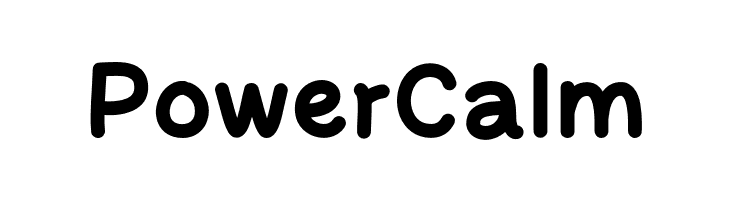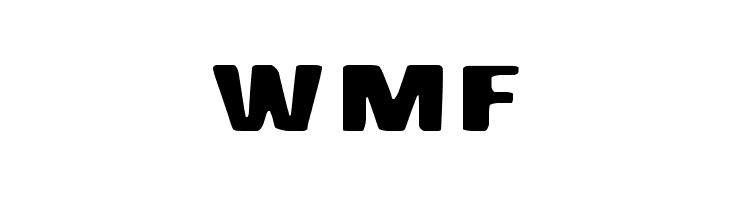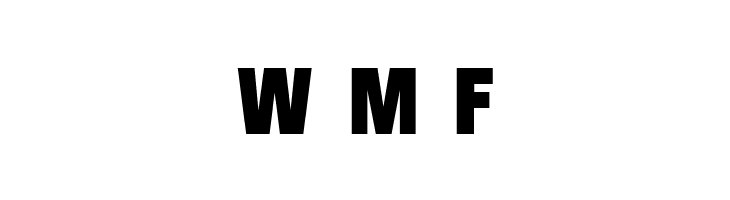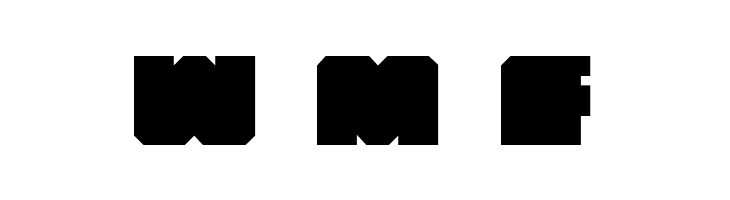
A bold, sans-serif typeface with a strong and impactful presence.
A decorative, retro font inspired by 60s and 70s counterculture, featuring hand-drawn, stamp-like characters.
A bold, modern font with thick strokes and geometric influences.
A bold, decorative font with a strong, impactful design.
A bold, rounded font with a modern and impactful style.
A bold, block-style font reminiscent of traditional collegiate lettering.
A bold, condensed blackletter font with high contrast and intricate details.
A bold, shadowed Gothic-style font with a three-dimensional effect.
A bold, condensed font with tall, striking letterforms and a vintage-modern appeal.
A bold, modern sans-serif font with a strong visual impact.
A bold, geometric font with Art Deco influences and strong, angular lines.
An illustrative font merging peace symbols with weaponry for visual storytelling.
A monospaced typewriter-style font with a modern, clean design.
A bold, impactful font with strong, consistent characters.
A bold, geometric font with strong, angular lines and a robust presence.
A bold, dynamic font with thick strokes and sharp angles, perfect for impactful designs.
A bold, angular font with a vintage, western-inspired style.
A bold, impactful font with thick strokes and tight spacing.
A bold, sans-serif font with strong, thick strokes and a modern aesthetic.
A bold, angular font with a futuristic and aggressive style.
A bold, impactful font with thick strokes and a modern, decorative style.
A bold, angular font with a strong geometric influence and high contrast.
Bold, angular font with outlined, three-dimensional characters.
A bold, geometric font with thick, blocky characters for strong visual impact.
A bold, angular font with a dynamic and geometric style.